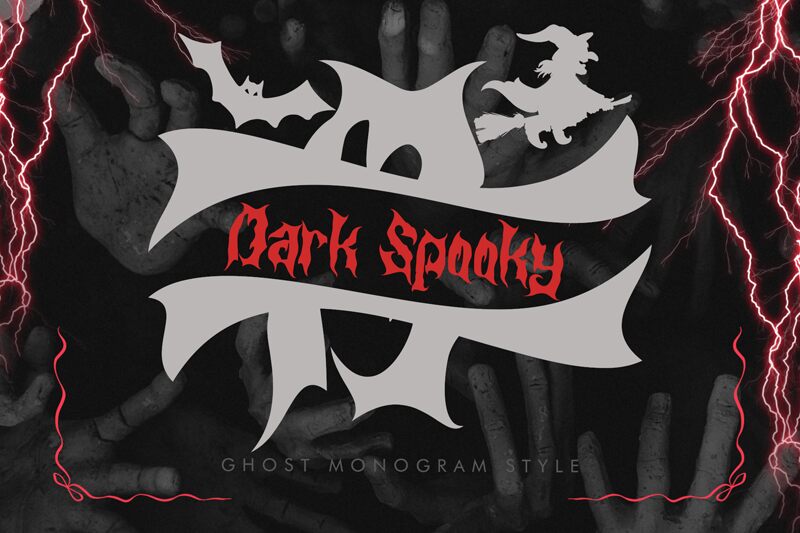
Dark Spooky font family by Yoga Letter is a free font for personal use, which captures a haunting and mysterious essence with each letter. The holiday font family comes in 2 dramatical styles that are fit for horror-themed and gothic-themed projects. Its angular and slightly edgy forms are heavily influenced by traditional dark ambiance to produce a genuine gothic typeface. The font is perfect for Halloween in which you are looking to create a spooky effect for your next design.
Use it for posters, Halloween party invitations, and decoration of haunted houses. Also, invitations, movie covers, book covers, apparel designs, restaurant menus, and other graphic designs with horror spaying a central theme.